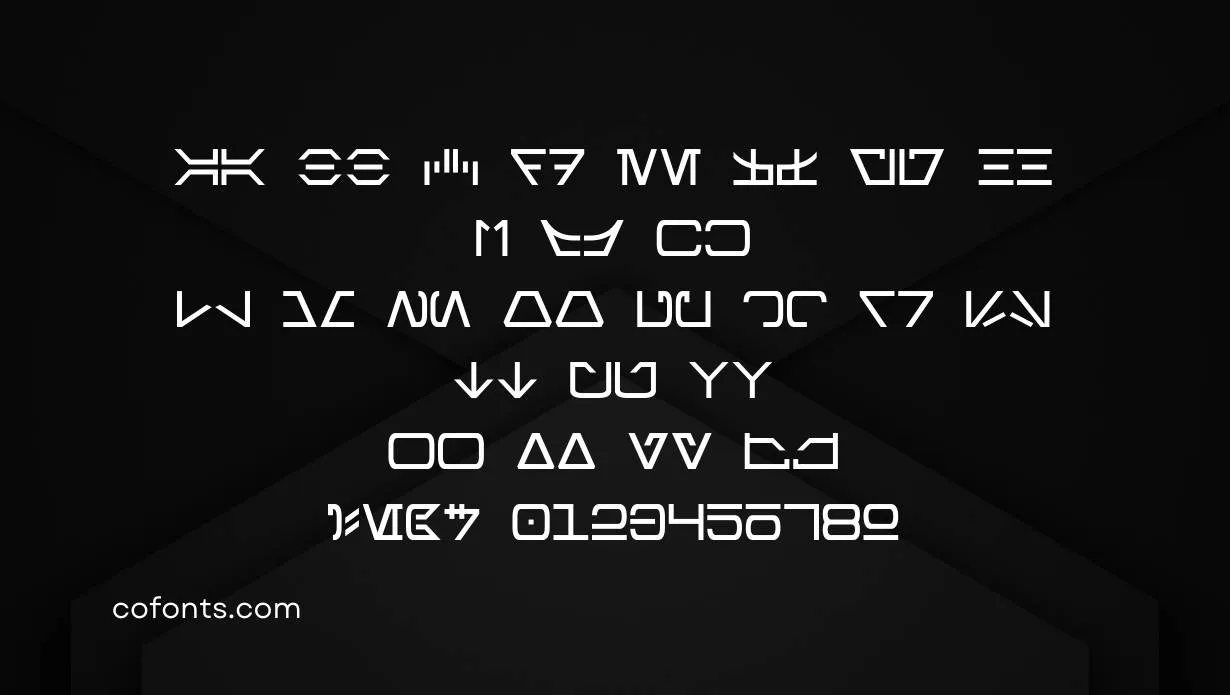
Here, we present Aurebesh Font which belongs Display font family. This typeface was developed by Pixel Sagas. The letters in this font are designed to resemble the letters in the Aurebesh alphabet. This makes it a great choice for those who want to create text that looks like it was written in the Star Wars universe.
Aurebesh Font is a great choice for those who want to add a bit of Star Wars flair to their text. The wide space between its letters makes it perfect for headlines and short blocks of text. However, its unique design means that it may not be the best choice for longer passages of text. If you’re looking for a font that’s both stylish and easy to read, this font is a great choice. You can also use the generator tool of this family for different designs.
Usage of Aurebesh Font
The value of this typeface is increasing day after day. This typeface is used for plenty of planes and functions. You can use it for many designs such as headlines, posters, titles, and short blocks of text. It is a great choice for those who want to add a bit of Star Wars flair to their designs. For more advanced uses, you need to use pricedown font by making a combination with this family.
It is perfect for headlines and short blocks of text. You can also use this family for thumbnails, and other small sizes. It would be a perfect choice for those who want to get their message across in a limited amount of space. This font family is an excellent choice for graphic designers, web designers, and others who need high-quality fonts that are easy to read and stylish.
Who is the creator of Aurebesh Font?
This classy font was created by Pixel Sagas. The designer has a passion for Star Wars and wanted to create a font.
Where we can use Aurebesh Font?
This font is perfect for headlines and short blocks of text. You can use it in designs such as posters, titles, and thumbnails.